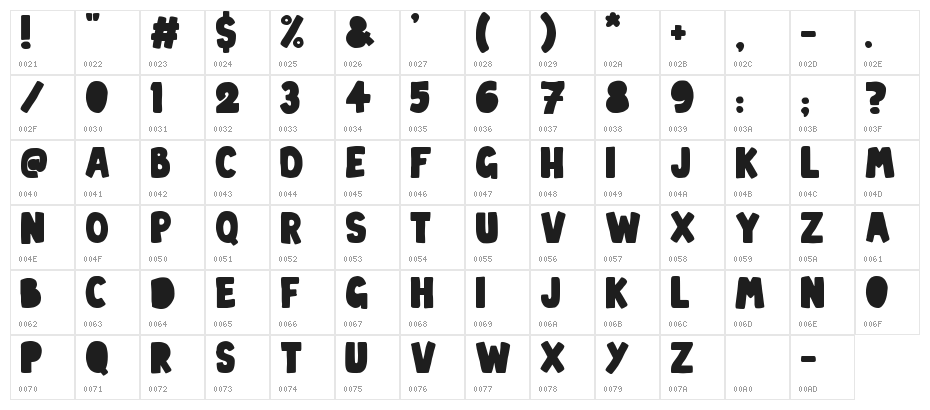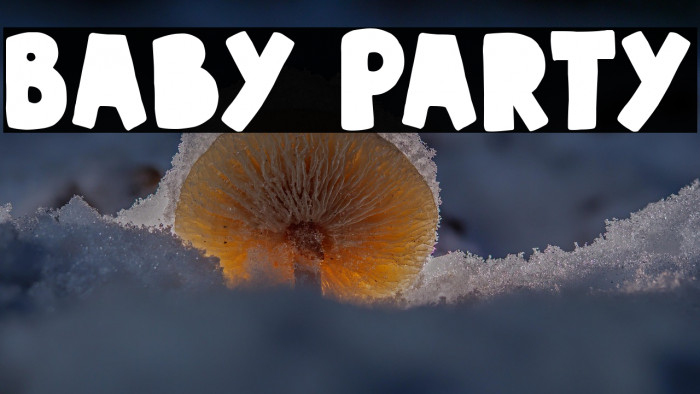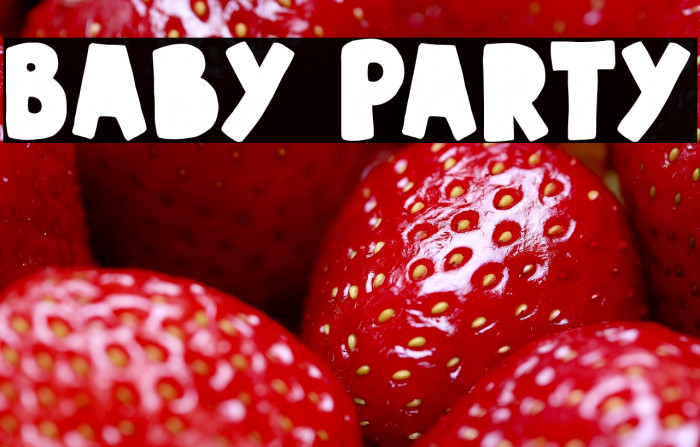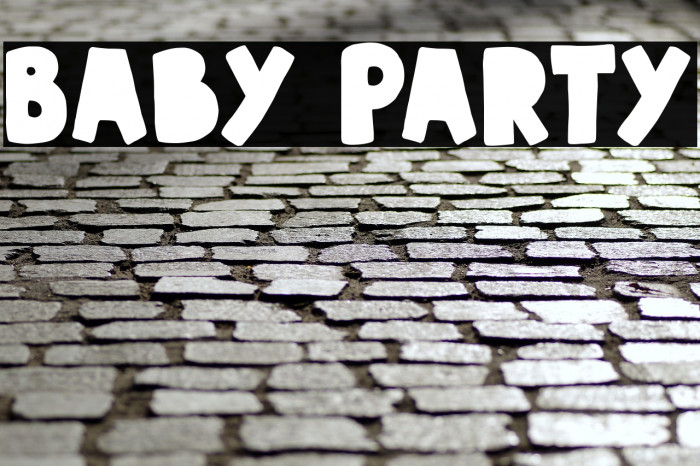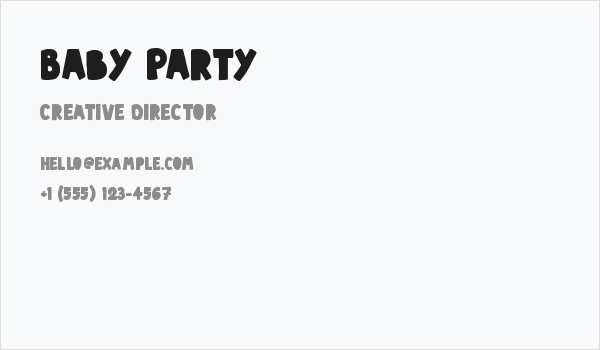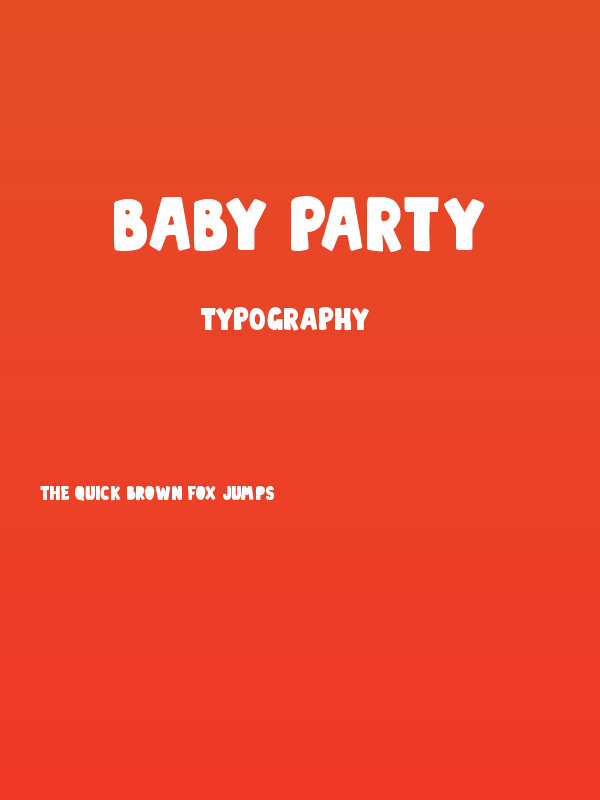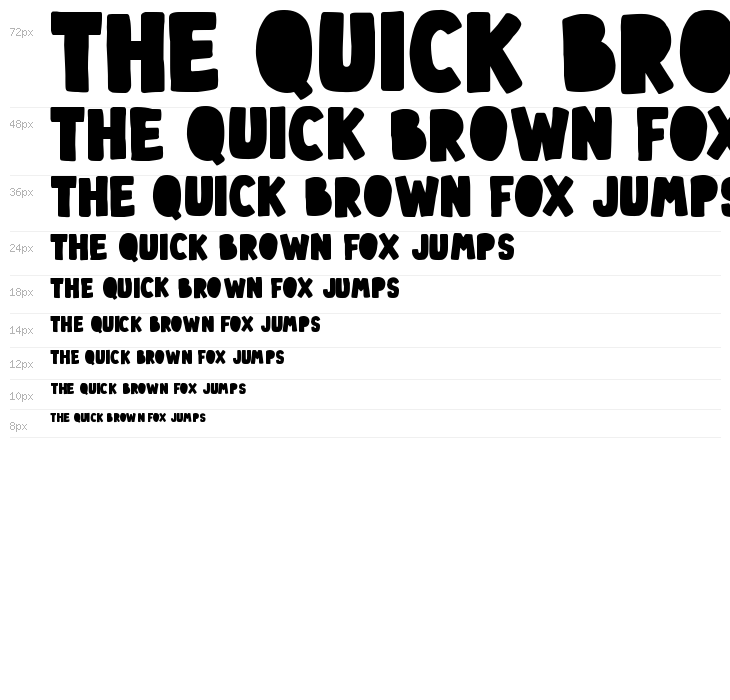
Baby Party Font
Baby Party Description
This playful and bold font features thick, rounded characters that exude a sense of fun and whimsy. The letters are uniformly bold with a slightly irregular shape, giving them a hand-drawn appearance. The font maintains a consistent weight throughout, with wide and friendly curves that make it highly legible. The numbers and special characters follow the same playful style, making it suitable for a variety of creative projects. Its unique style is perfect for capturing attention and conveying a cheerful, informal tone.
| Overall Style | Playful, Fun |
| Proposed Projects | Ideal for children's books, party invitations, playful branding, and posters. |